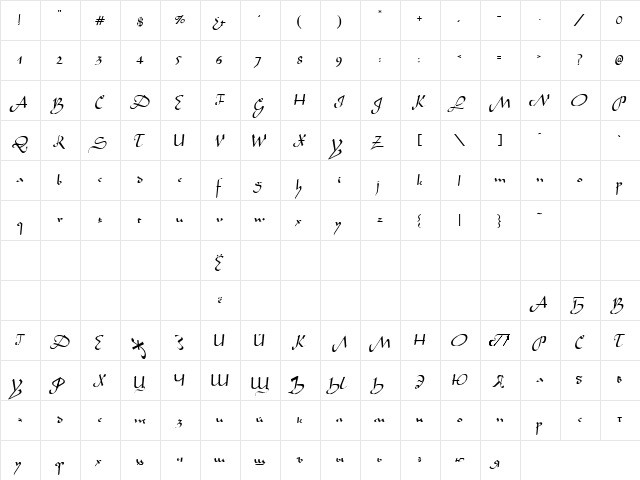
ArabianNormal Cyr Regular
ArabianNormal Cyr is a composed and adaptable typeface that performs quietly and consistently across a wide range of design contexts.